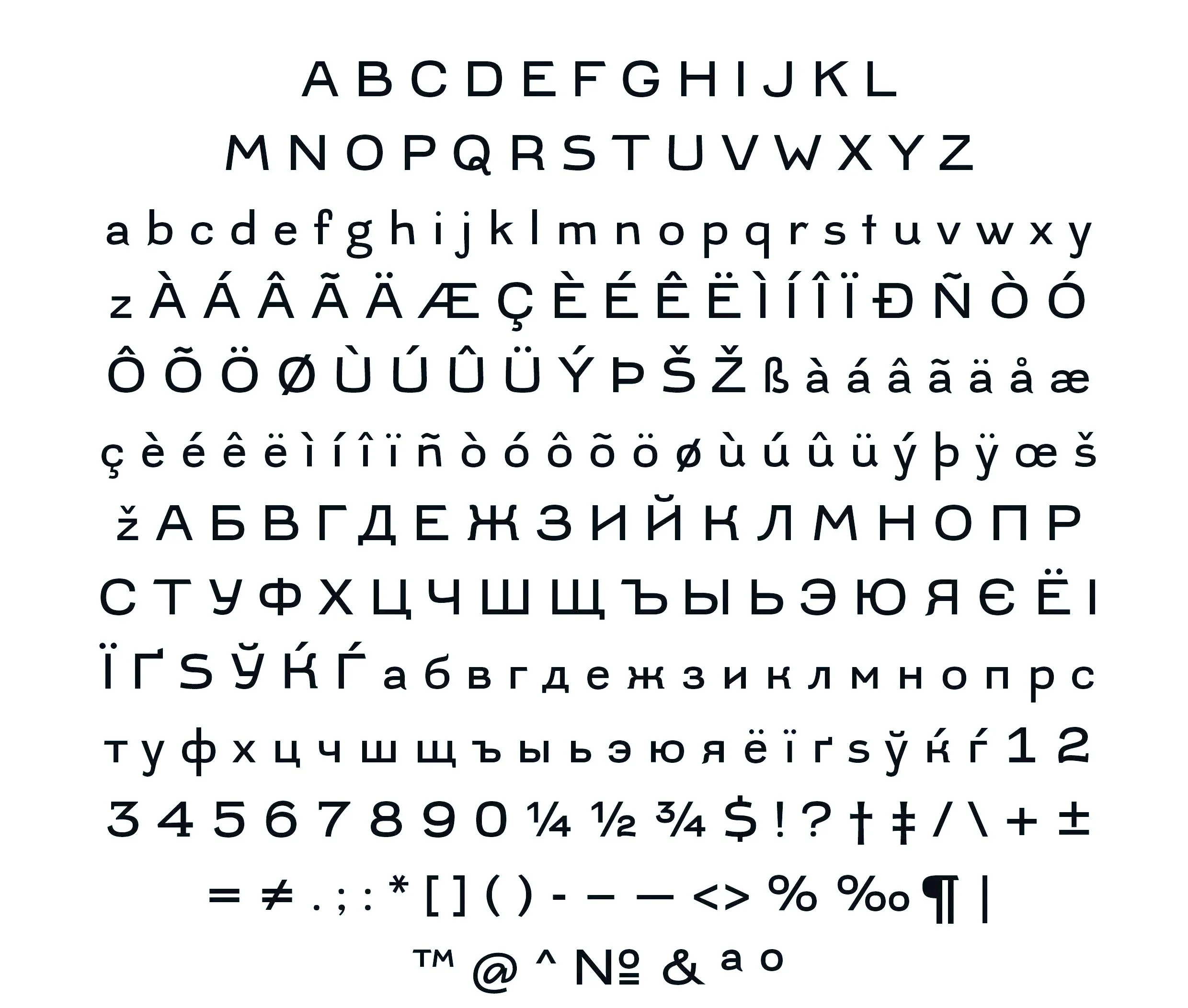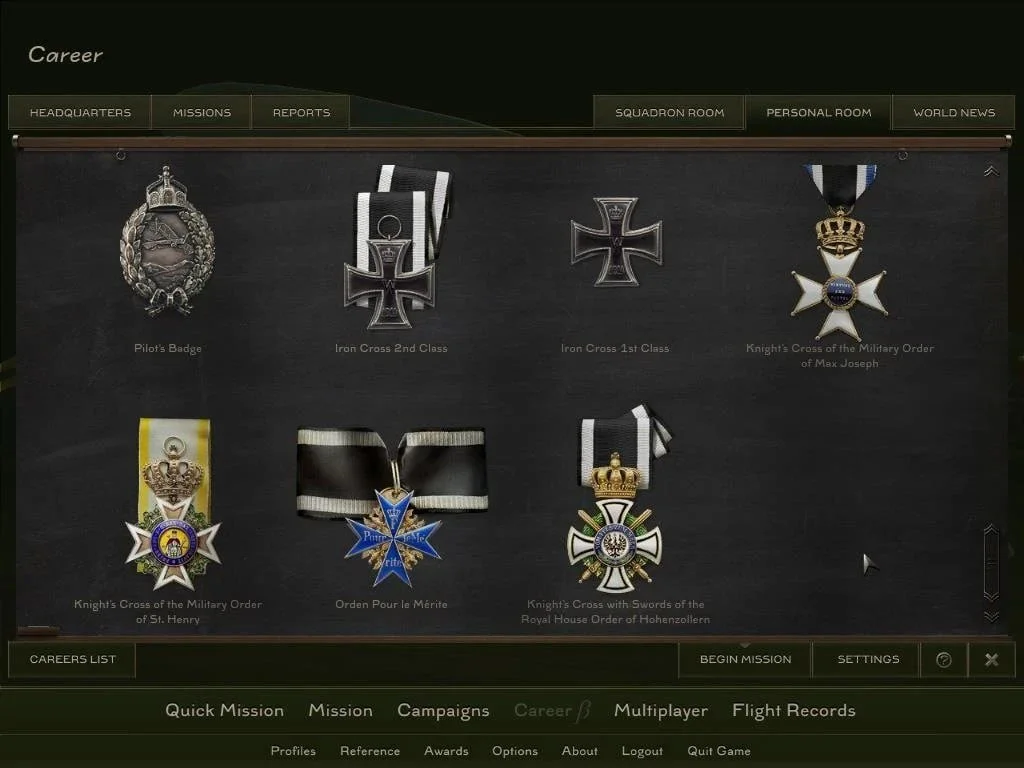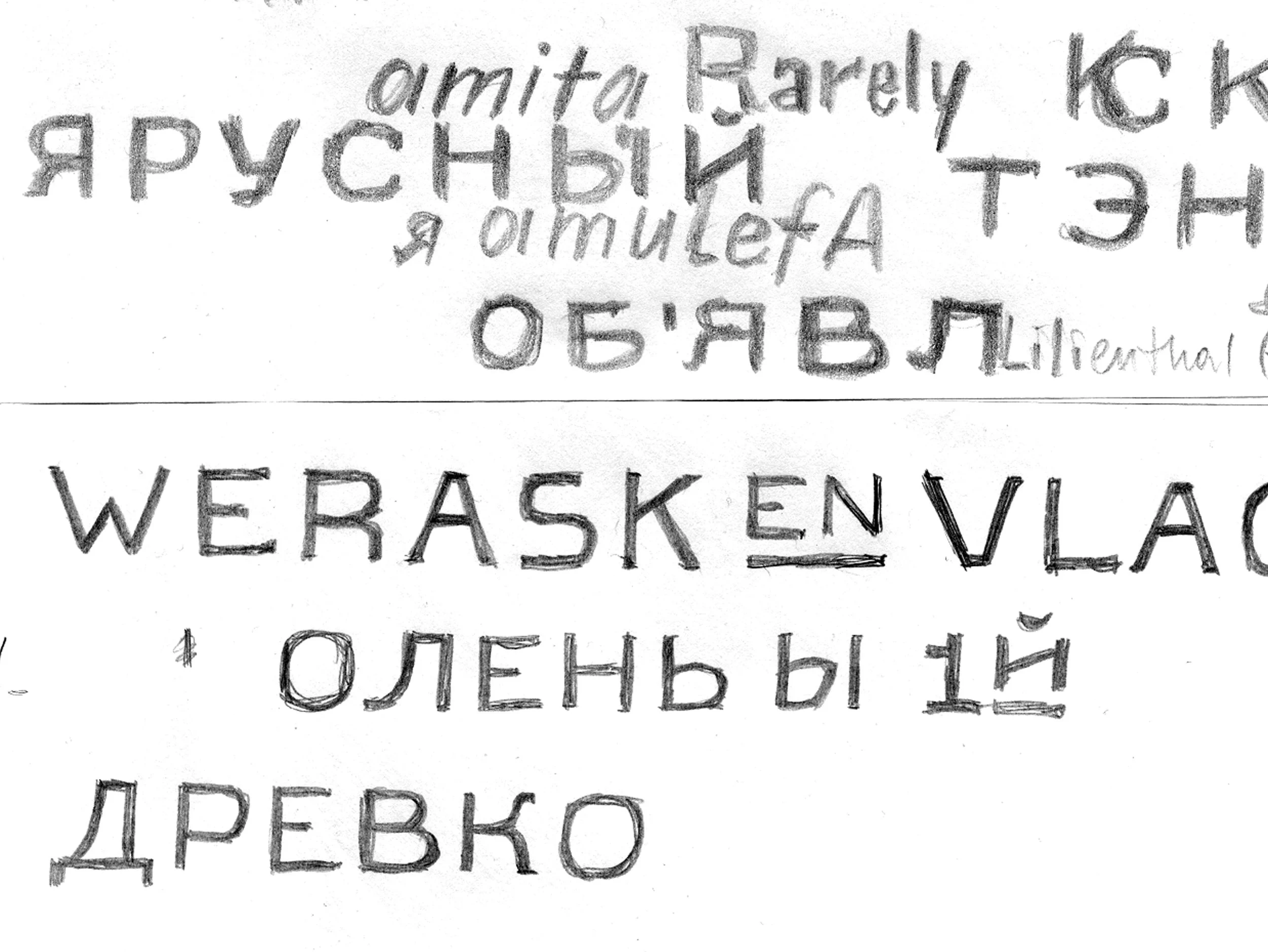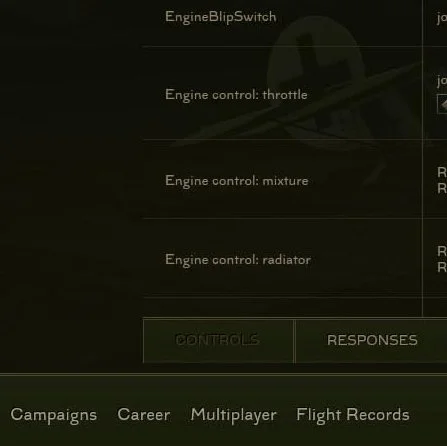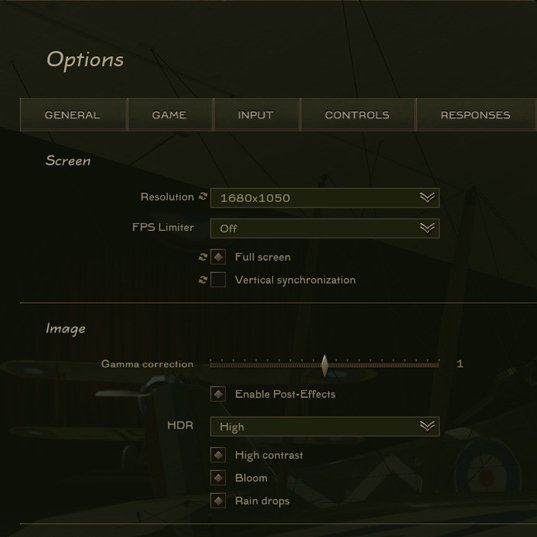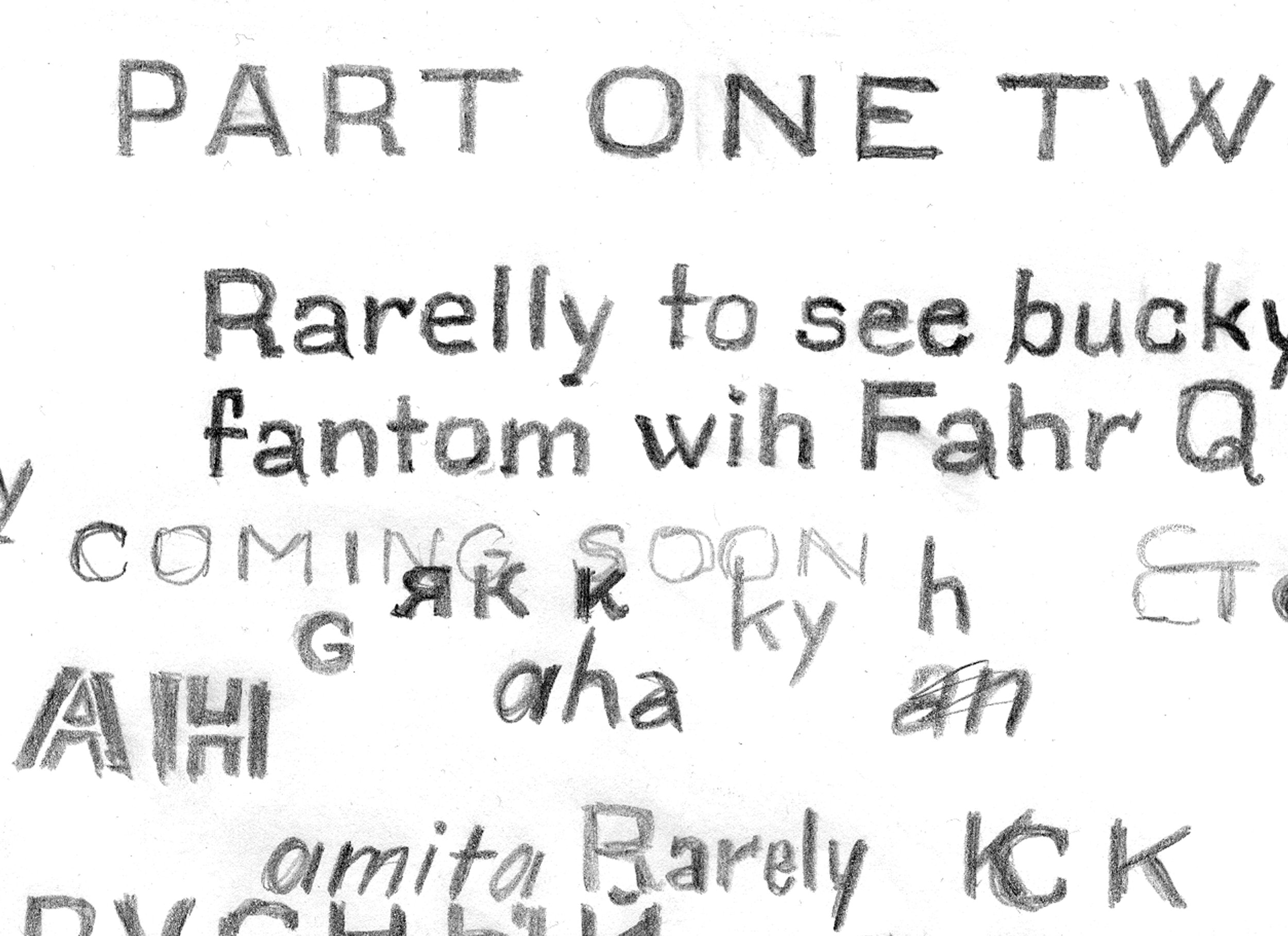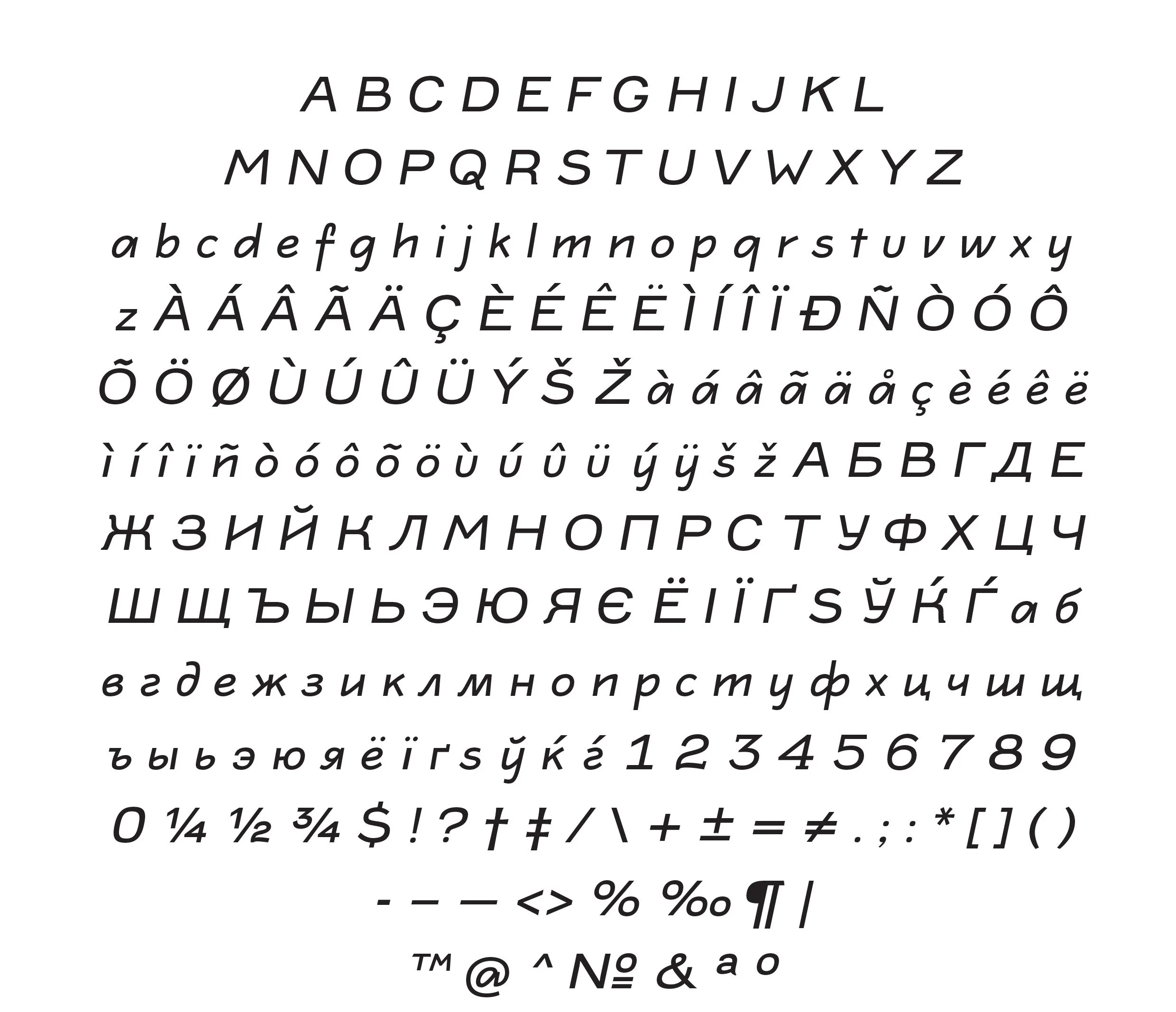
Lilienthal Grotesk typeface
Commissioned by a gaming company Algorithm LLC and designed for the computer game Knights of the Sky, which is dedicated to the pilots of the World War I.
Lilienthal Grotesk was inspired by the early 20th-century sans serif typefaces, yet evolving as an independent style, and its Italic originates in the distinctive handwriting used on maps and engineering plans of the time.
Lilienthal Grotesk help recreating the authentic atmosphere of the era of the first brave flights.
Vera named the typeface after the engineer and experimenter, Otto Lilienthal, whose inventions preceded the construction of airplane.